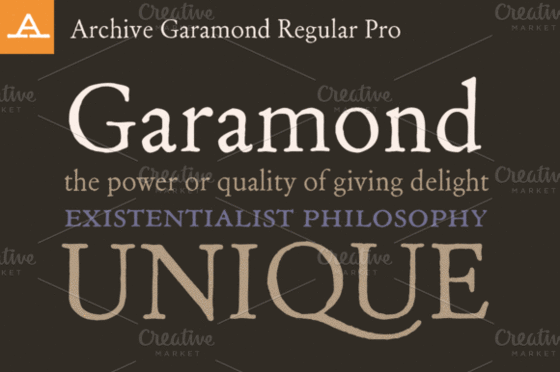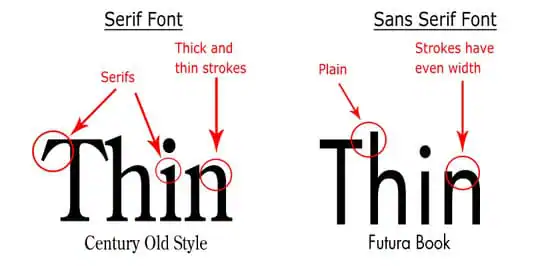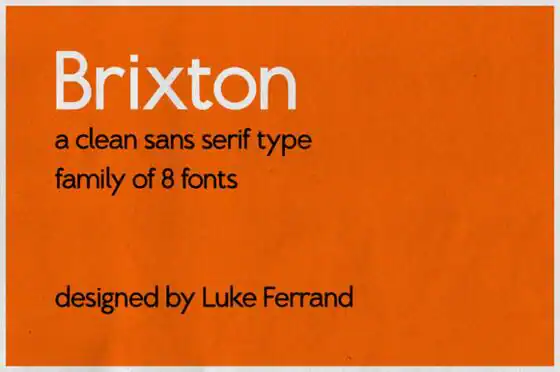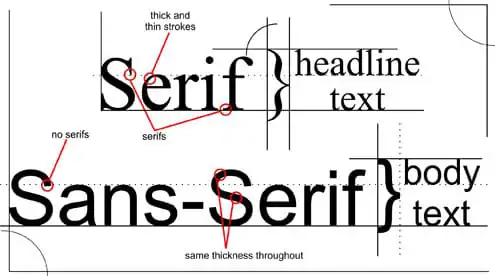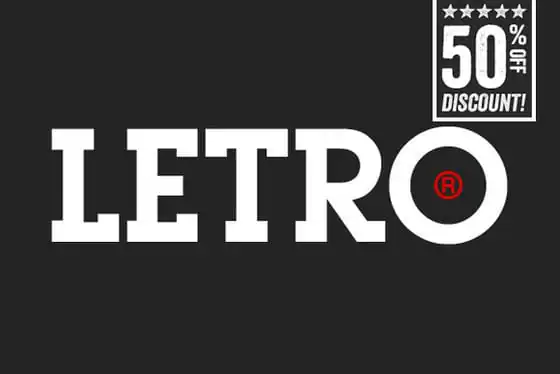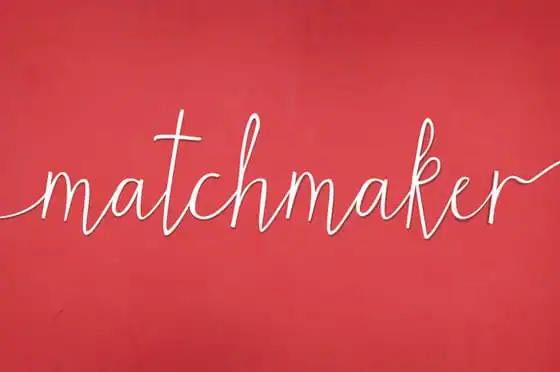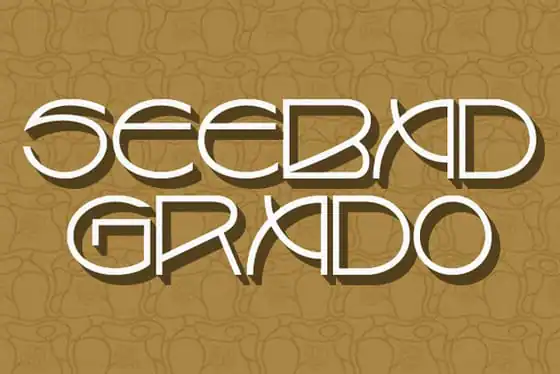
It’s difficult to overstate the importance of typography in design. Whether it’s the logo, a product description or blog post, choosing a font that conveys the information you want about your company and message is as essential as the wording itself. Believe it or not, the typeface tells a story long before the words are digested. For instance, a vintage font suggests old-timey qualities, a delicate script symbolizes feminine sophistication and a minimalist sans serif implies logic and fact. No matter what the intended use, however, every designer should have five specific types of fonts in his collection. Here are the ones that will get the most use in your work and why.
Serif
The original typeface, serifs feature small lines attached to the end points of a letter. These typefaces are mostly used for print materials, as the serifs make the each word easier to recognize visually. The additional line on the letter is called the serif. Some examples of popular serif fonts include Times New Roman, Book Antiqua and 1790 Royal Printing. They lend a sophisticated yet decorative appeal to content, but again, they look best on printed materials rather than on digital mediums. When working with online content, you’ll probably prefer sans serifs.
Sans Serif
Sans, from the French, means “without.†These refer to fonts that don’t have that extra flourish or dash of the serif. They’re much simpler, and they look great online. Additionally, they’re very easy to read on computer or mobile screens, making them particularly popular with web and graphic designers. Just because they’re minimal doesn’t mean they’re boring, though. You can find vintage, decorative and elegant sans serifs as readily as you can serifs; it’s all in the style of the lettering. Some popular examples of sans serifs include Arial, Gills Sans and Tide Sans Condensed.
Slab Serif
Also known as Egyptian, slab serifs have bold, thick serif lines with little variation between the letter and the serif, unlike the original style, which has thinner serifs. As a result, they have a very pronounced affect and clean look. These are great fonts for making an argument, emphasizing something important or using for headlines or titles, but they can just as easily be used for content, depending on the needs of the website. Examples of slab serifs include Rockwell, College and Maxwell Slab. They have a more casual appeal, so they work well for blogs and smaller companies that like personal interaction with buyers.
Script
Appearing more like natural handwriting, often with a cursive style, script fonts are approachable while having a distinctively elegant air. Mostly used for more dramatic elements, such as a logo, title or headline, some scripts are legible enough for larger chunks of text. Highly ornamental flourishes can lend dramatic weight to content associated with special occasions, such as invitations to parties or weddings, while informal styles look like casual handwriting and work well for blog entries. Popular examples of script fonts include Black Chancery, Chopin Script and The Carpenter.
Decorative
Script fonts can certainly be decorative, but fonts that are intended only for short, impactful statements or names have their own category. Perfect for logos, decorative fonts are eye-catching, with flourishes, unique styles and memorable designs that are catchy for users. Think of your favorite logos for big name brands like Coca-Cola, Disney or Kool-Aid. They all use decorative fonts. Another popular example is Desire. Decorative typefaces are the most evocative and should be used very carefully, because they send a strong message.